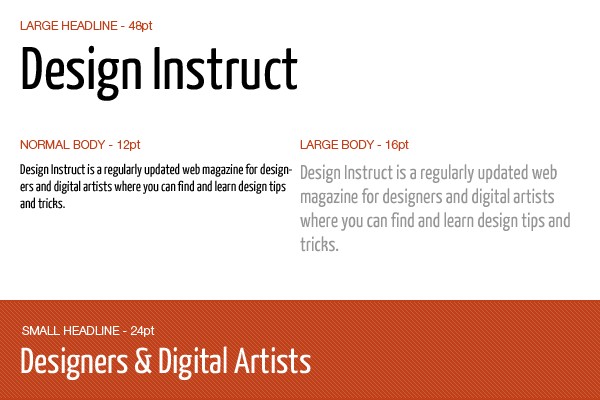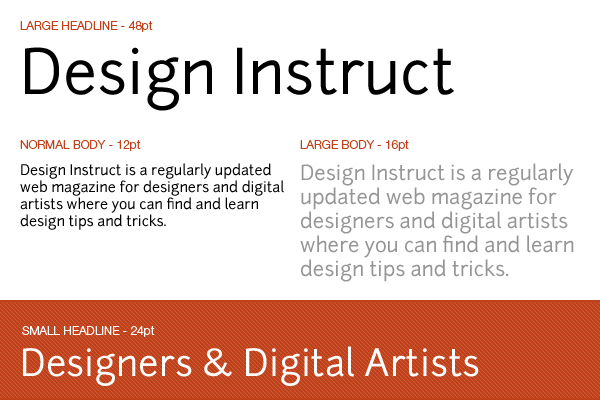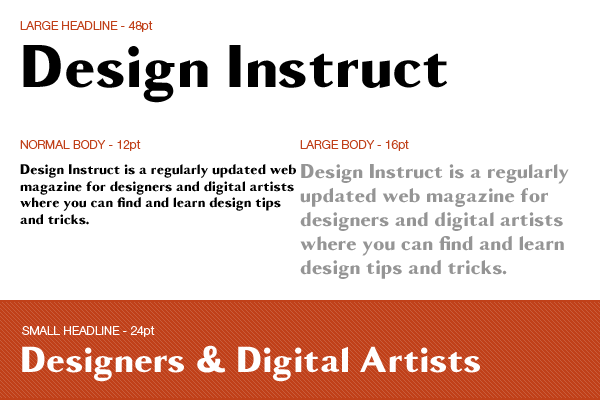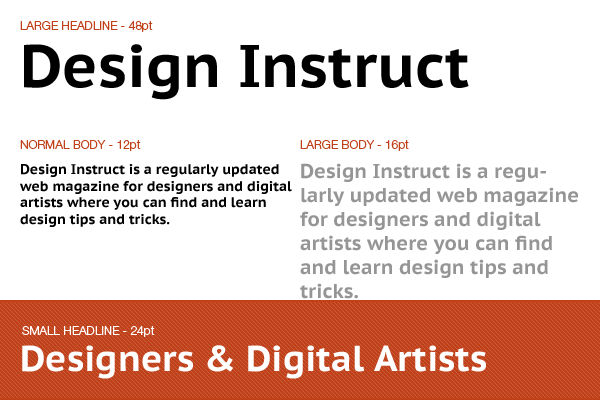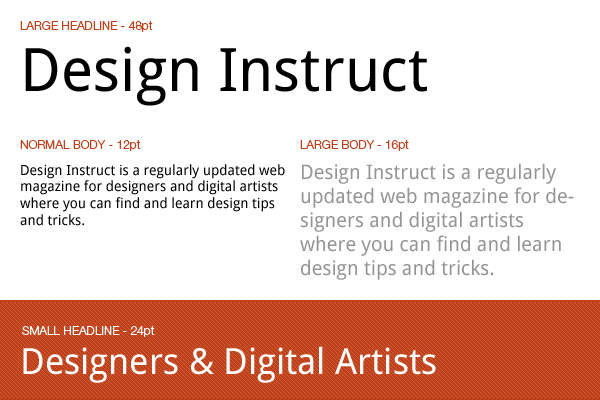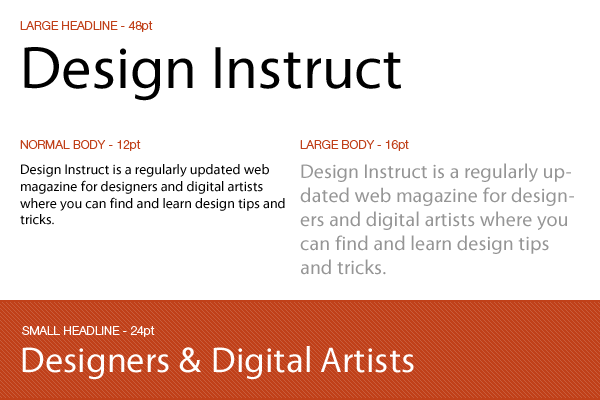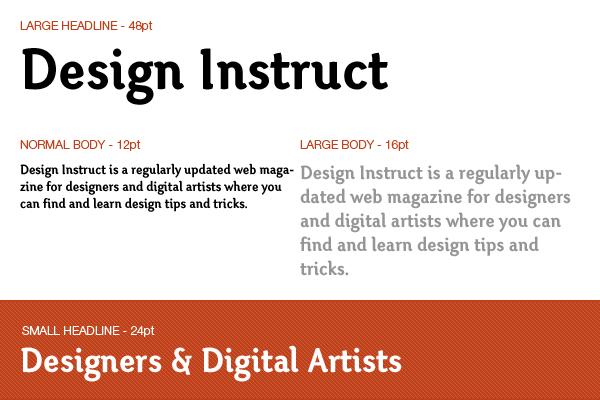
Font Collection: 10 Free Humanist Sans Serif Fonts
1. St Ryde Regular
This humanist font designed by German type designer Sascha Timplan was inspired in part by script typefaces, having subtly rounded terminals.
2. Droid Sans
Steve Matteson designed this beautiful humanist sans serif font to have a "neutral, yet friendly appearance." The font is optimized for use in UIs, especially on mobile device screens.
3. Yanone Kaffeesatz
The first completed font of graphic/type designer and multimedia artist Yanone, Yanone Kaffeesatz was influenced by coffee houses in the 1920s.
4. Otari-Bold-Limited
This interesting humanist sans serif font created by Travis Kochel works in headlines as well as body copy (a little bit of tracking adjustment on smaller sizes may be needed).
5. Junction
Junction, by designer Caroline Hadilaksono, was inspired by the creator’s favorite humanist fonts, including Myriad and FF Scala Sans.
6. Camisado Black
Made by designer and illustrator Greg Eckler, Camisado Black is a humanist sans serif font with "transitional tendencies."
7. PT Sans
PT Sans is based on early Russian sans serif fonts, but with the modernity and distinctive features of humanistic design.
8. Vegur
Vegur’s humanistic features show themselves best in the font’s links and endings, making the characters appear as though they were written using a calligraphic pen.
9. Mayberry Pro Semi Bold
This condensed humanist font designed by Steve Matteson for AscenderFonts prides itself in optimal legibility, especially on screen.
10. Delicious
Two years in the making, Delicious is a gorgeous and functional font designed by Jos Buivenga of exljbris Font Foundry, who created the font because of his "admiration for typography."